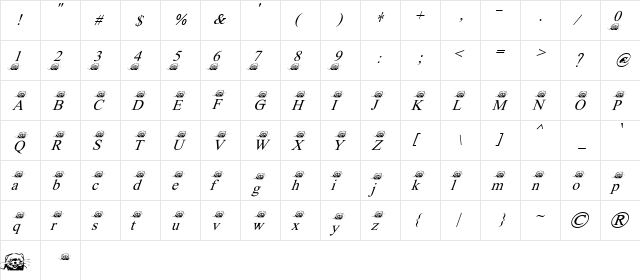
FerretsRTopsItalics Regular
Design Context for FerretsRTopsItalics Typeface
FerretsRTopsItalics offers clean, dependable letterforms without strong stylistic allegiance, making it a practical choice for designers who need flexibility. The dynamic lean of this cut emphasises speed and emphasis in any layout.